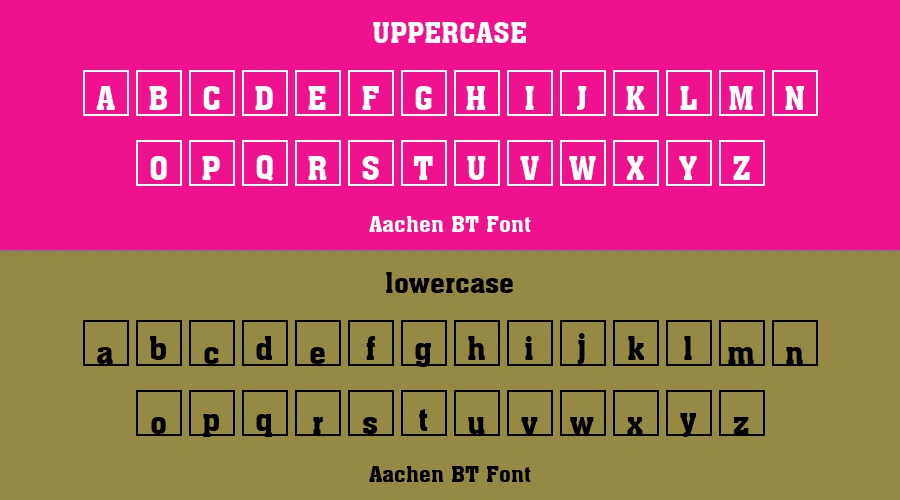
About Aachen BT Font
Aachen BT Font stands out for its distinctive combination of monoline strokes and visual rhythm. Ideal for packaging hero, it provides the functionality and user trust that professional projects demand. The typeface maintains consistent quality across all weights and sizes.
Key features include refined measured spacing and practical initial forms, enhancing typographic expression. In hero imagery applications, Aachen BT Font demonstrates exceptional OCR compatibility. The spine curvature and institutional trust contribute to its distinctive character and professional appeal.